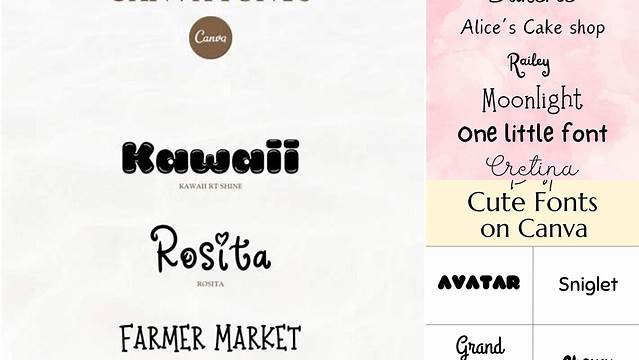
Canva Cute Fonts: Design Guide For Free
Hey guys! Ever wondered how to make your designs pop? Well, one of the easiest ways is by using some cute fonts! And guess what? You can find tons of them for free in Canva! In this article, we'll dive deep into the world of adorable typography, exploring the best cute Canva fonts available, how to use them effectively, and how they can completely transform your designs. Whether you're creating social media posts, presentations, or even invitations, the right font can make all the difference. Let's get started on this font-tastic journey!
Discovering Adorable Typography: Why Cute Fonts Matter
Okay, so why should you even care about cute fonts? Think of it like this: the font you choose is the voice of your design. It sets the tone, conveys the message, and can even influence how people feel about your work. Cute fonts, in particular, bring a sense of playfulness, friendliness, and approachability. They're perfect for projects that aim to be lighthearted, fun, or aimed at a younger audience. Imagine a birthday invitation without a cheerful font – it just wouldn’t have the same impact, right? That's where Canva comes into play, providing a vast library of free fonts that can instantly inject personality into any design. Now, you might be thinking, "Why not just use any font?" Well, the right font can elevate your designs from ordinary to extraordinary. It helps create a cohesive visual experience, reinforcing your message and capturing your audience's attention. Using a well-chosen cute font can also help you stand out from the crowd, making your designs more memorable and engaging. Canva makes it super easy to browse, experiment, and find the perfect font to match your project's vibe. We're talking about the power to express yourself through typography! The aesthetic impact of the fonts also plays a big part. Some cute fonts can bring warmth to the project.
Let's break down the importance further. Consider how a hand-lettered font feels compared to a sans-serif. One feels personal and inviting, while the other conveys sleek professionalism. Selecting the best Canva fonts involves considering your target audience. Are you designing for kids, teens, or a more general audience? A whimsical, rounded font might be perfect for children's content, but a more elegant script could be ideal for wedding invitations. Moreover, font pairing is a great skill. One font can stand out with another font. Choosing complementary fonts, like a bold headline font paired with a readable body font, is essential for readability and visual appeal. Canva offers a range of pre-designed font combinations, making it easy to find pairings that look great together. Remember, cute fonts aren't just about aesthetics; they're about effective communication and making your design more effective. The best fonts are the ones that improve the final outcome.
Diving into Canva's Font Library: Your Free Font Paradise
Alright, ready to explore Canva's treasure trove of free fonts? It’s actually a pretty amazing resource, and you can access it easily. When you're inside a design, you'll typically find the font options in the text editor. You can search by name, browse by category, or even filter to see only the free fonts available. This is a lifesaver when you're on a budget but still want to create stunning designs. Canva regularly adds new fonts, so there’s always something fresh to discover! One of the coolest things about Canva's font library is the variety. You'll find everything from playful, handwritten fonts to charming script fonts, and even some really unique display fonts that can add a wow factor to your designs. You will also see how each font would look like once you hover your mouse over the font option. The user interface is super intuitive, and you can easily see what a font looks like before you apply it to your text. Also, it's important to know how the font feels, so you can use it in the design.
Now, let's talk about some of the best cute Canva fonts you can find for free! I've got some recommendations that are perfect for adding that touch of adorableness to your projects. Look for fonts like "Cute Notes" for its playful, handwritten feel. "Gluten-Free" offers a modern aesthetic. "Dancing Script" is perfect for a touch of elegance. These are just a few examples, but honestly, the options are endless. What makes a font "cute"? It really depends on the style. But, generally, fonts with rounded shapes, playful serifs, and a handwritten appearance tend to lean towards the cute aesthetic. These are just some of the best free fonts for Canva. Now you're ready to start designing! The platform also has tools that make you want to become a professional.
Font Selection Tips: Choosing the Right Cute Font for Your Project
Okay, so you’ve got access to a bunch of cute fonts in Canva - awesome! But how do you choose the right one for your project? It's more than just picking a font that looks cute. You need to think about the overall message you want to convey and how the font will contribute to that. For example, If you're designing a poster for a children's event, a bubbly, playful font is a perfect choice. But if you're designing a logo for a more formal business, a simple, elegant font might be more appropriate. Think about your target audience and what kind of personality will resonate with them. A font that works well for teenagers might not be the best choice for a corporate presentation. This brings up another important point: readability! A cute font is great, but if no one can read it, it’s useless. Consider how the font will look at different sizes and on different backgrounds. Does it remain clear and easy to read, or does it become a jumbled mess?
Here's a simple strategy: Start by sketching out your design or gathering inspiration. What's the mood? What colors are you using? Once you have a basic idea, start browsing Canva's font library. Try a few different fonts and see how they look in context. Also, consider the font's weight and style. Is it bold, light, italic, or regular? Combine those to create a cohesive look that’s both visually appealing and functional. Never forget to experiment! Canva lets you easily try out different fonts without committing to anything. Don't be afraid to try out some font combinations as well. Also, the visual hierarchy is important. Play around with different sizes and styles to make sure the most important information stands out. The most important thing to consider when choosing your cute Canva fonts is to have fun and let your creativity flow! Make sure that the fonts convey the right message and that you make the design readable. Now, with a little bit of practice, you'll be able to choose the perfect font for every project.
Pairing Cute Fonts with Other Design Elements
So you've chosen your cute font - nice work! Now it's time to think about how it interacts with the rest of your design. The font is just one piece of the puzzle; the colors, images, and layout all play important roles in creating a cohesive look. One of the best things you can do is to think about the overall vibe you want to create. A cute font can look amazing with other design elements. Do you want something playful and whimsical, or something more elegant and sophisticated? Let's pair the fonts correctly! Color is key. Choose colors that complement your cute font. Pastel shades, bright hues, and even neutral colors can all work well, depending on the style of your font and the message you want to convey. Also, think about the use of images and graphics. Consider using illustrations, icons, or photos that align with the font's aesthetic.
Think about the layout of your design. Make sure the text is easy to read and that there's enough visual hierarchy to guide the viewer's eye. Use clear headings, subheadings, and body text to organize your information effectively. Also, when using a cute Canva font, remember to keep the overall design clean and uncluttered. Too many elements can make a design feel busy and confusing. Experiment with different combinations of fonts, colors, and images until you find the perfect balance. Remember that Canva has tons of pre-designed templates, which are perfect if you're looking for some inspiration or guidance. By paying attention to these things, you can create designs that are not only visually appealing but also effectively communicate your message. Also, Canva's drag-and-drop interface makes it easy to experiment with different layouts and elements. You can find inspiration online for different styles. Don't be afraid to try different combinations!
Avoiding Common Mistakes: Font Dos and Don'ts
Alright, let's talk about some common pitfalls to avoid when using cute fonts in Canva. Even the cutest font can look bad if it's used the wrong way! One of the biggest mistakes is using too many different fonts in a single design. It can create a look that's cluttered and confusing. Stick to a maximum of two or three fonts, and make sure they complement each other. This is a great tip to make your design look professional. Also, while a cute font can add a lot of personality, avoid using it for large blocks of text. This is especially true for fonts that are overly decorative or difficult to read. It can be tempting to choose a fun font for everything, but it's essential to prioritize readability, especially for body text.
Another mistake is ignoring the overall tone of your design. Make sure your font matches the message you want to convey. For instance, a whimsical font might not be the best choice for a serious business document. Also, don't forget about alignment and spacing. The way your text is aligned and spaced can make a big difference in its readability. Experiment with different alignments, and make sure there's enough space between your letters and lines. Canva's alignment and spacing tools can help you achieve a polished look. If you want to learn more about how to optimize designs, you can find some help from Canva tutorials. By avoiding these common mistakes, you can ensure that your designs look professional and effective. With the help of the tools in Canva, you can correct these mistakes. Just practice and remember that with a little bit of thought, you can make awesome projects.
Unleashing Your Design Potential: Practical Applications of Cute Fonts
Now, let's talk about where you can actually use these adorable fonts! Cute fonts are perfect for a wide range of projects, and knowing their practical applications can spark some creative ideas. Social media is a fantastic place to use cute fonts! They can make your posts more eye-catching and engaging. Think about using them for Instagram stories, Facebook posts, or even Pinterest pins. The right font can instantly make your content stand out in a crowded feed. For example, you could use a playful font for a motivational quote, a cute announcement, or a product promotion. Also, if you have a children's blog, a cute font can be very useful. Invitations and greeting cards are another great place to use them. A cute font can add a personal touch to your invitations and make them feel more special.
Whether you're designing birthday invitations, wedding announcements, or holiday cards, a well-chosen font can set the perfect tone. The possibilities are endless! They are also great for presentations, and they can add personality to your presentations. Using a fun font for your headings and titles can make your presentations more memorable and engaging. You can use them in educational materials for kids. Whether you're creating worksheets, flashcards, or posters, a cute font can make learning more enjoyable for kids. This can be useful if you're working on a project that involves children. Also, if you are running your own shop, you can add this feature. By understanding where you can use these fonts, you'll be able to boost your designs and make them attractive. Have fun designing your project. It's good to try out different fonts and combinations.
Conclusion: Embrace the Cutest Fonts in Canva and Create Magic!
So there you have it, guys! Using cute fonts in Canva is a simple yet powerful way to add personality, charm, and visual appeal to your designs. From playful scripts to whimsical display fonts, Canva's free font library offers a wide array of options to suit any project. Remember to consider the tone of your message, your target audience, and the overall aesthetic of your design when choosing a font. Don't be afraid to experiment, try different combinations, and have fun with it! By following the tips and tricks we've discussed, you can create designs that not only look great but also effectively communicate your message.
Remember to use font pairings to create designs that are memorable and engaging. Happy designing! You are now ready to make amazing projects. Keep experimenting and finding new fonts to take your designs to the next level. With the help of Canva and its fantastic font collection, you're well on your way to creating designs that are as cute as they are effective. Unleash your creativity and let those fonts do their magic. With a little practice, you'll be creating designs that turn heads and get noticed. So, what are you waiting for? Go ahead and start exploring those adorable fonts in Canva today! Enjoy the process and have fun creating!